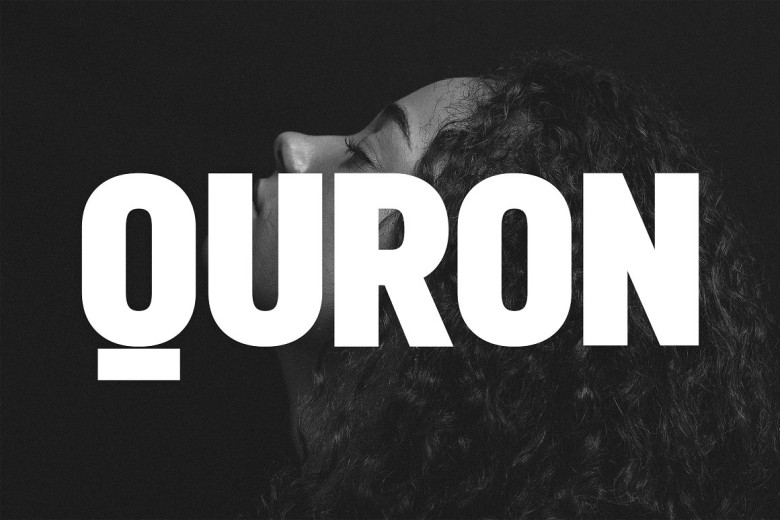
Quron Font
Quron is an exquisite modern display font. Boasting powerful, unique, bold artistic, social character designs with luxurious finishes to make an impression that is fresh. Quron makes an ideal choice for magazines, logos ads websites headlines captions titles games UI clothing films apps etc – ideal for creating an impression that is fresh.
Quron Display typefaces